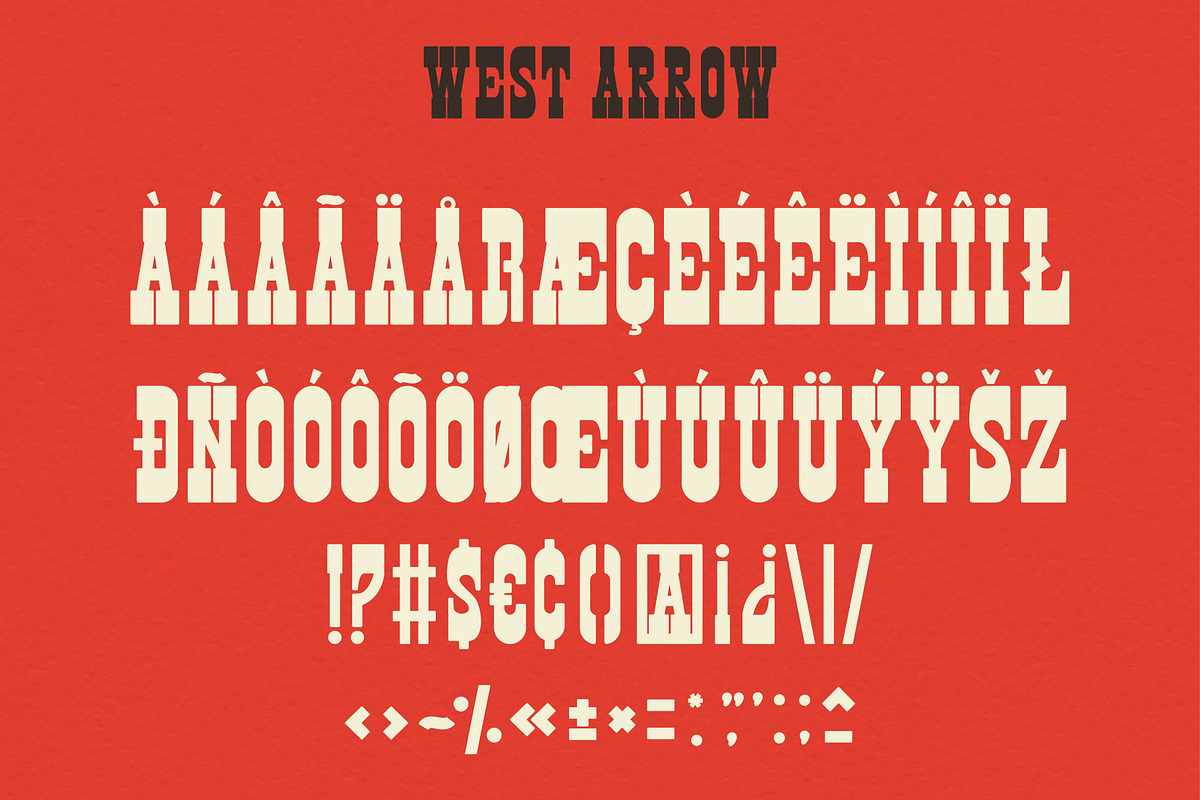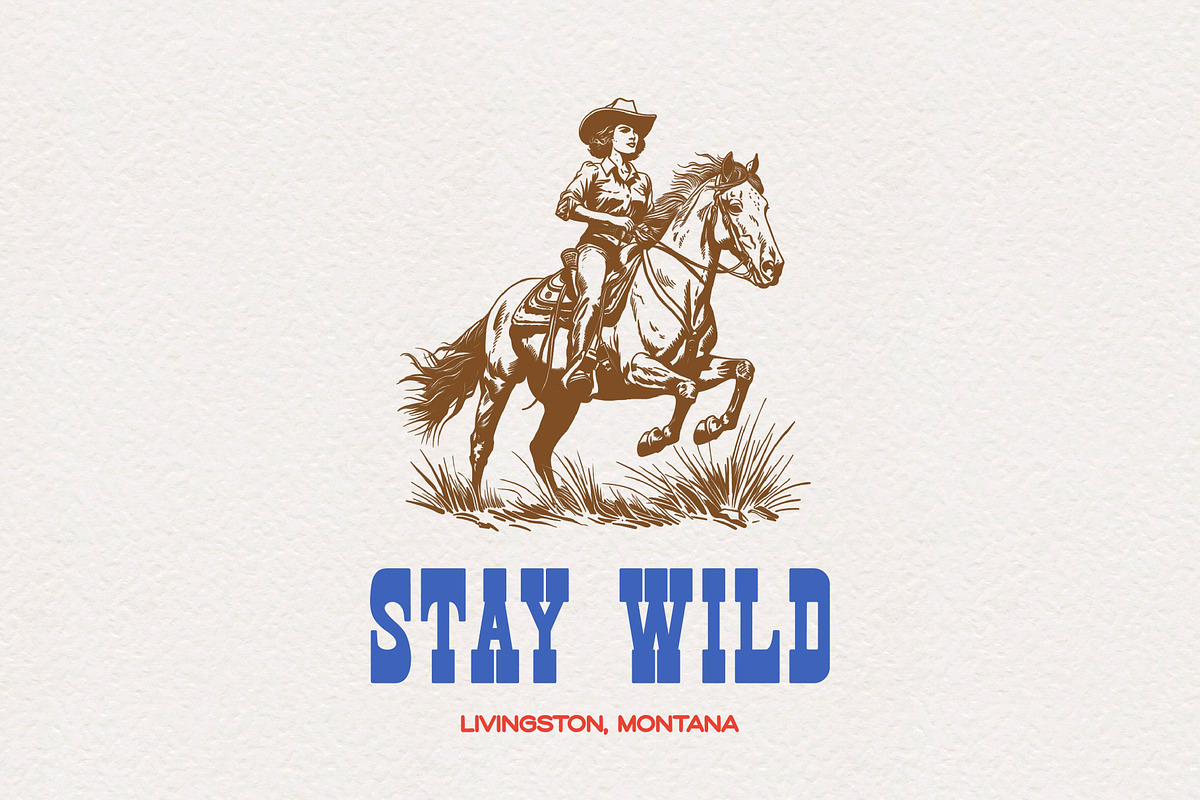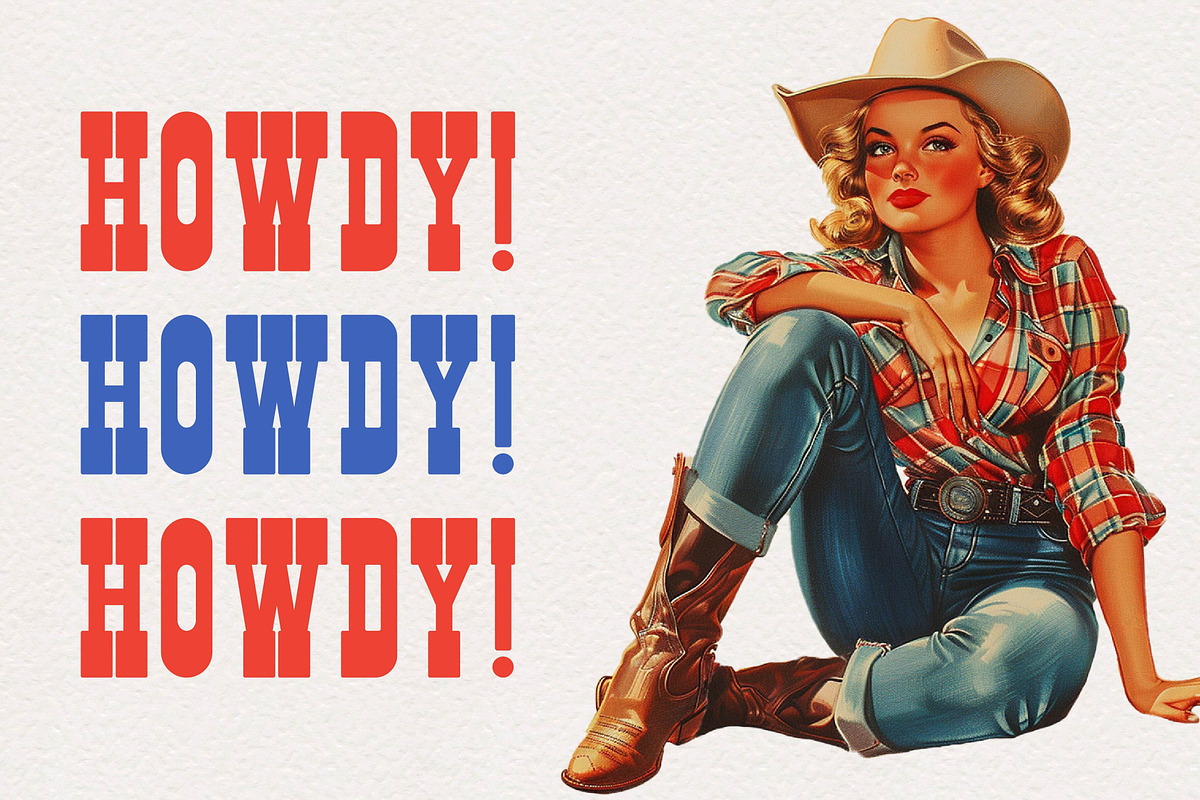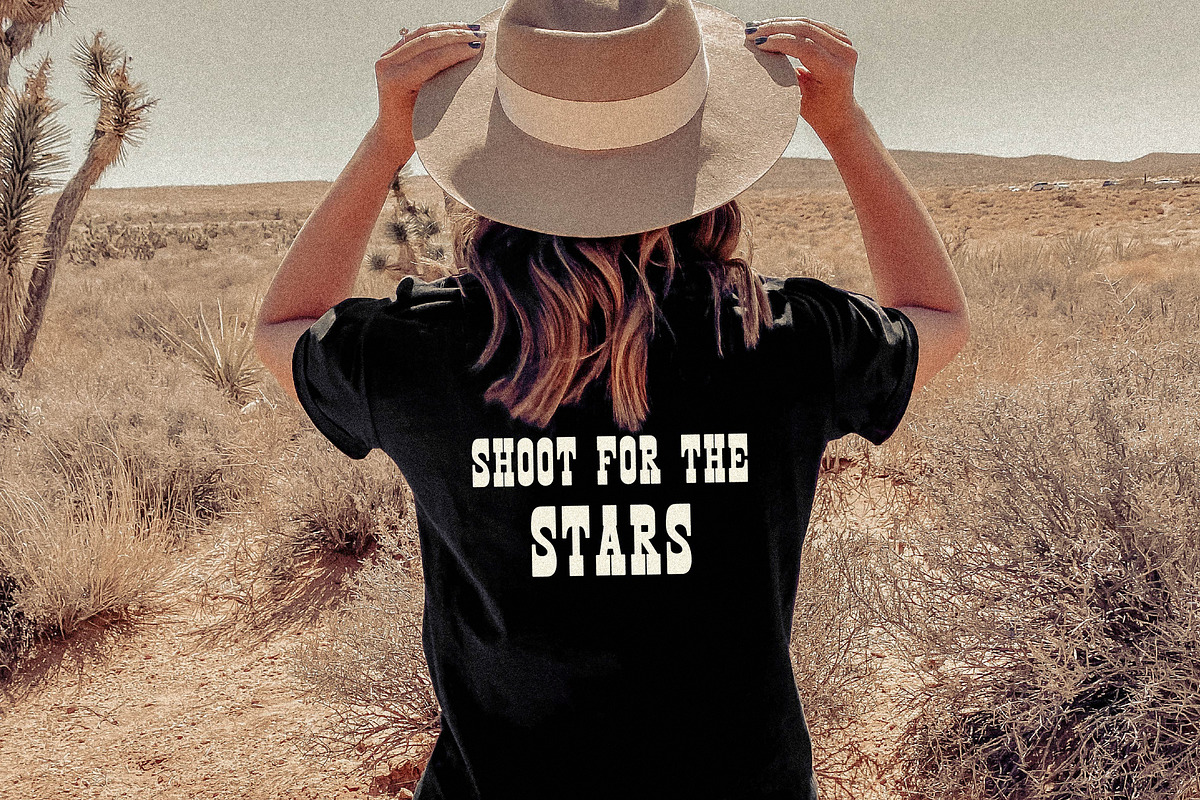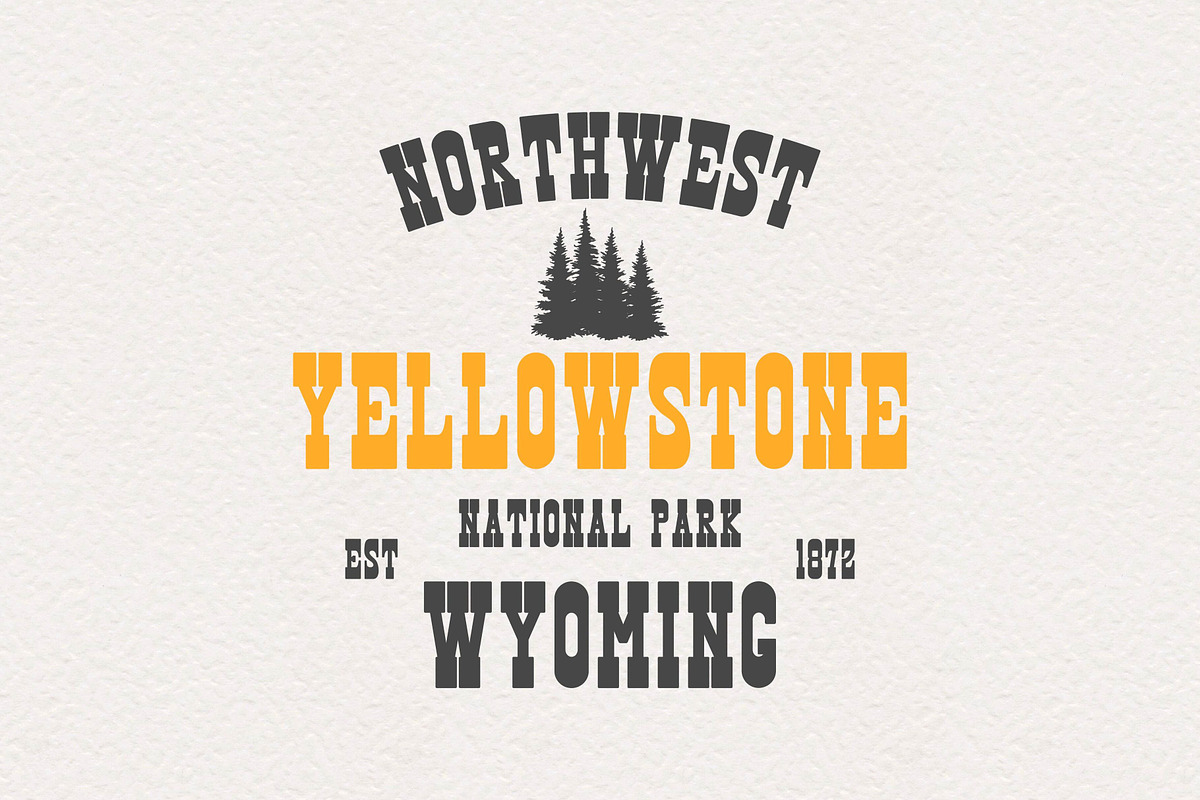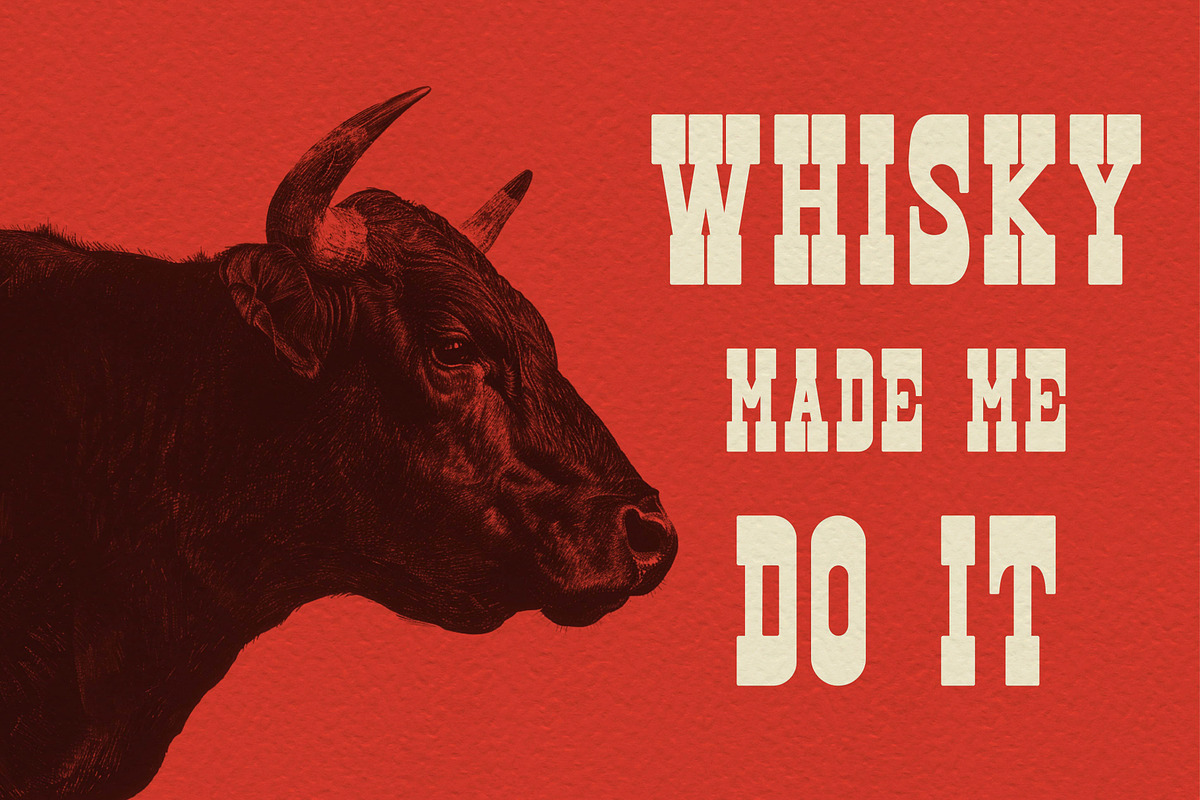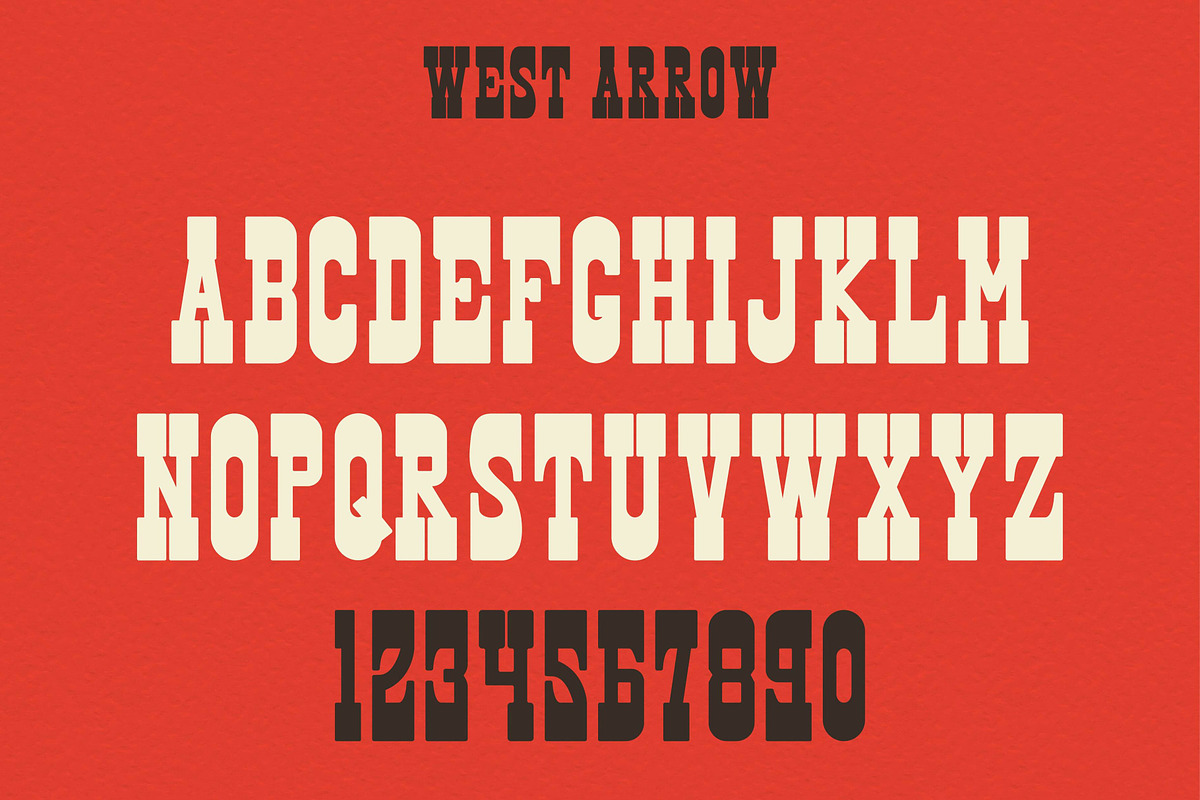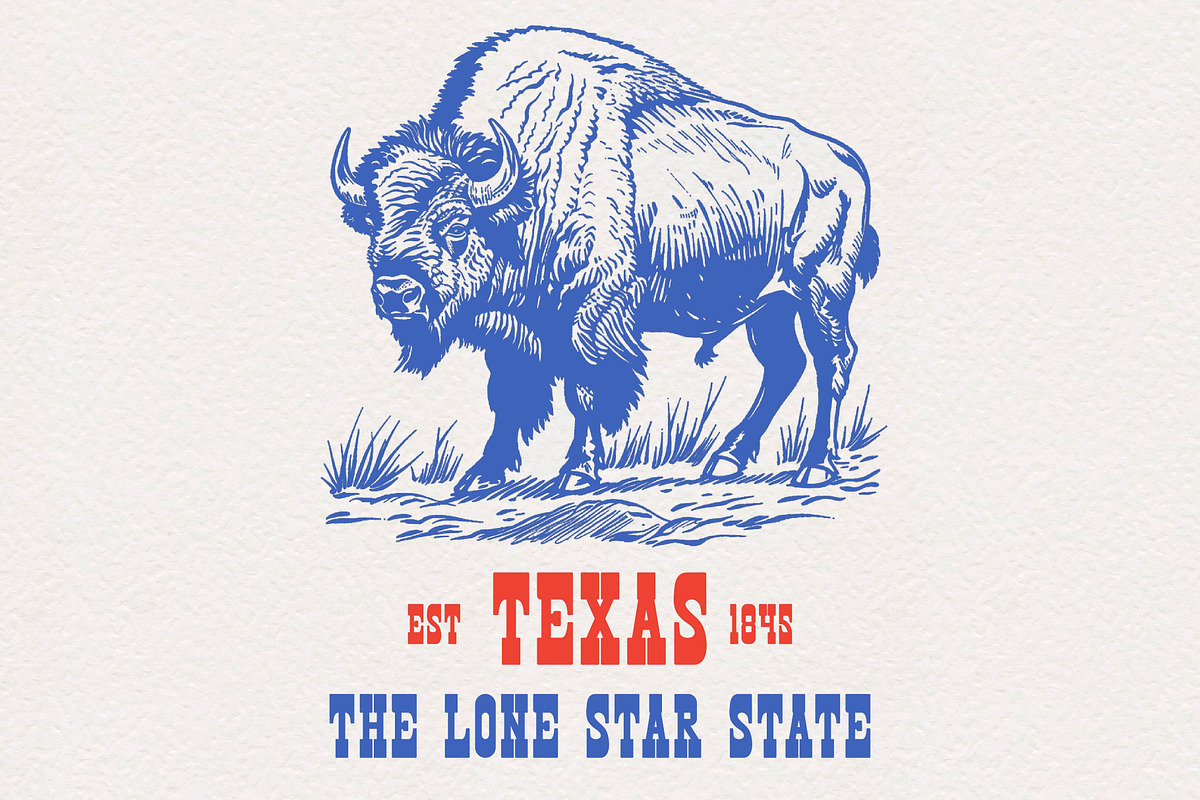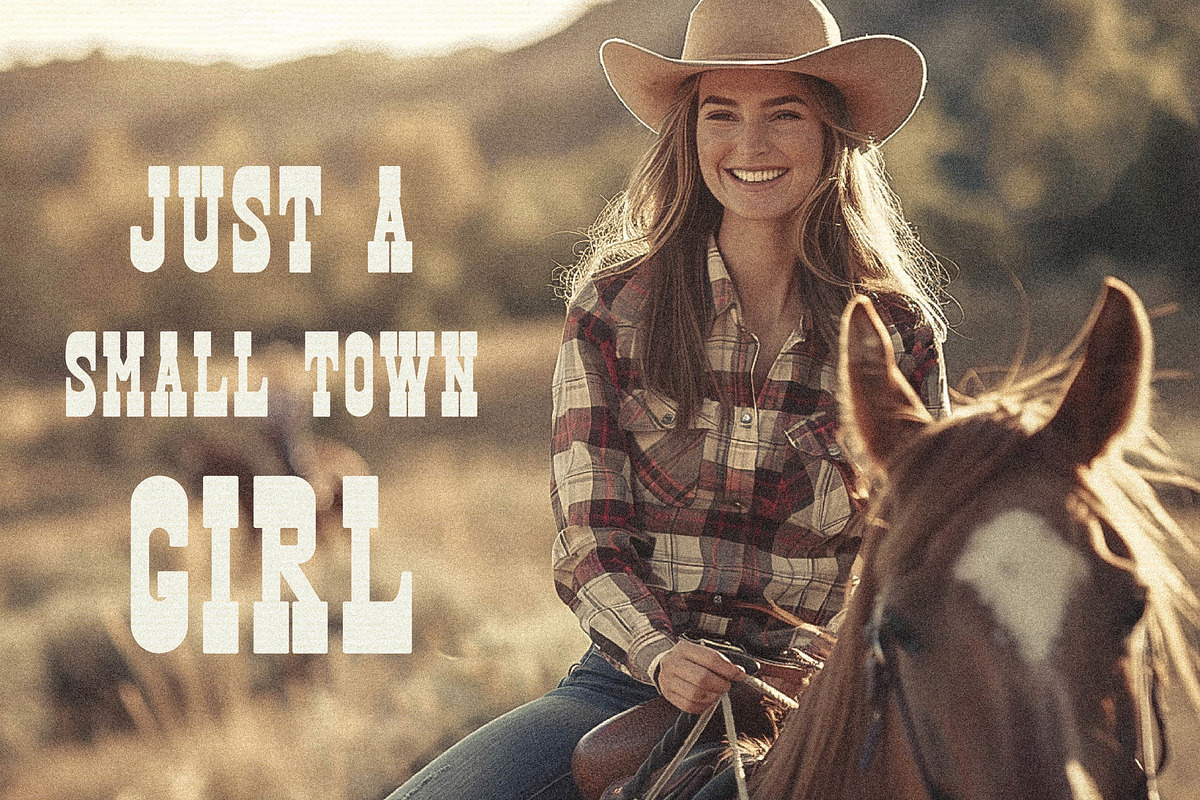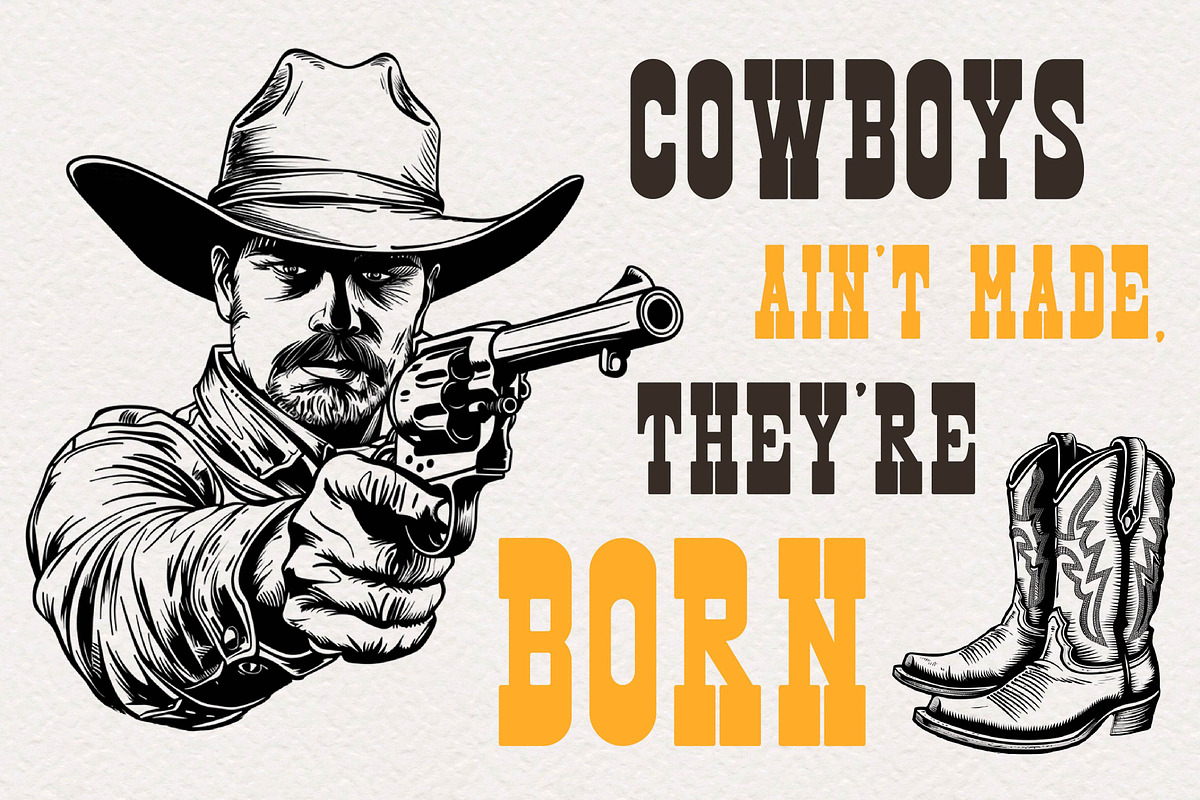
West Arrow - Western Font
West Arrow is a hand-drawn retro vintage western font. The font features slab serifs and original shapes that embody the spirit of the Wild West.